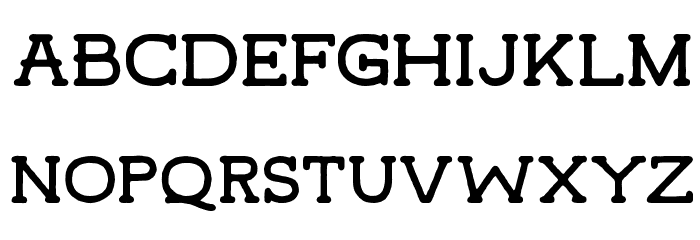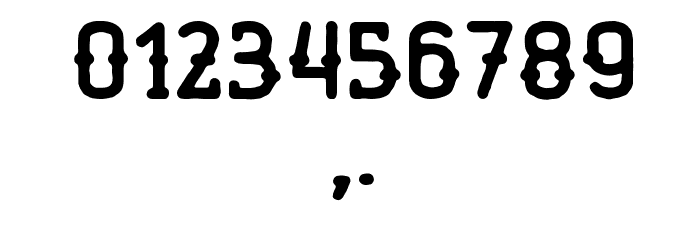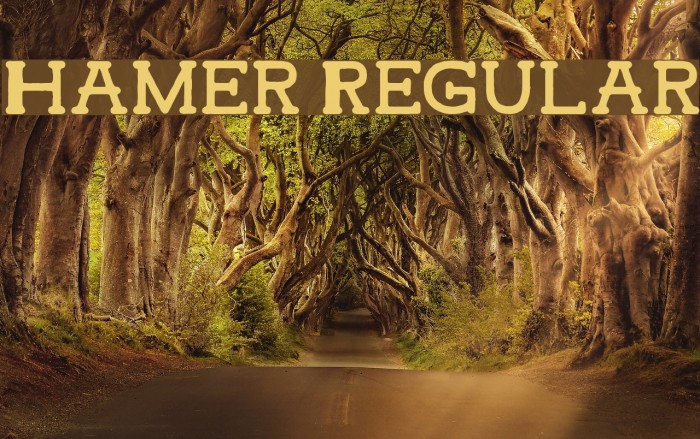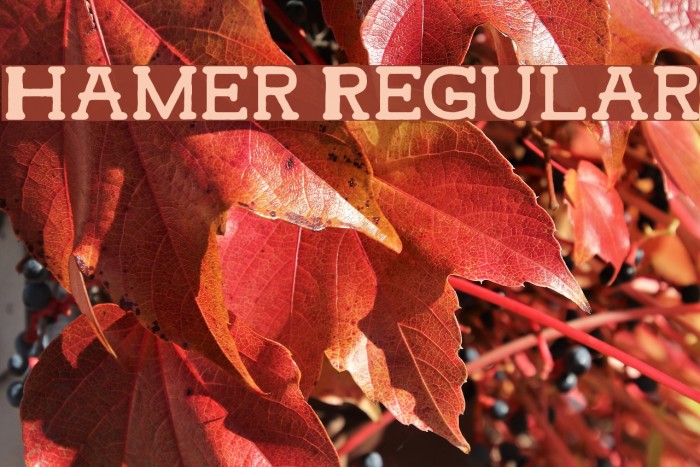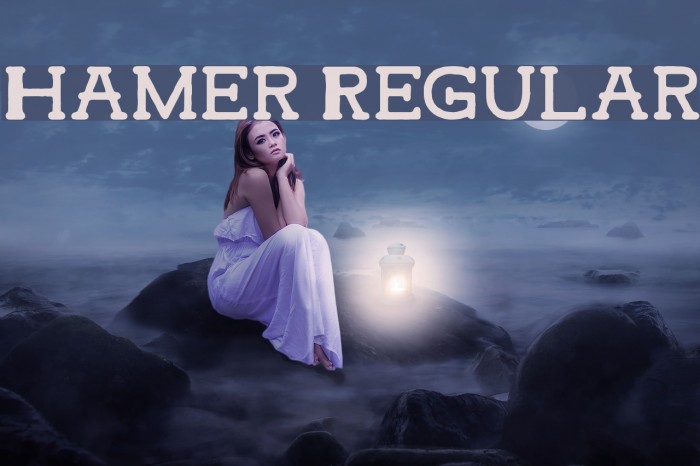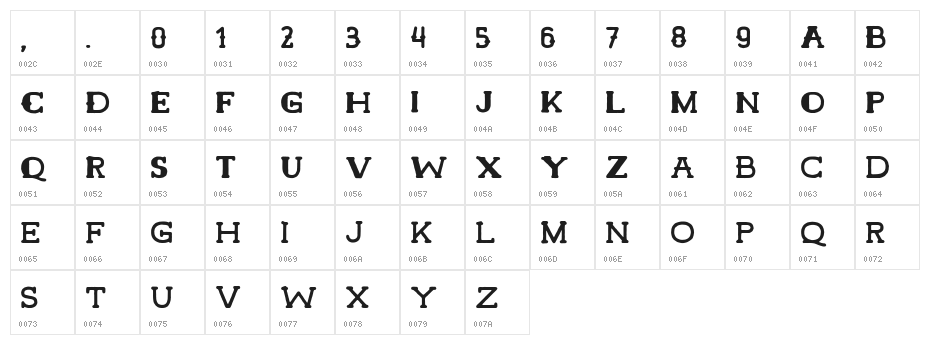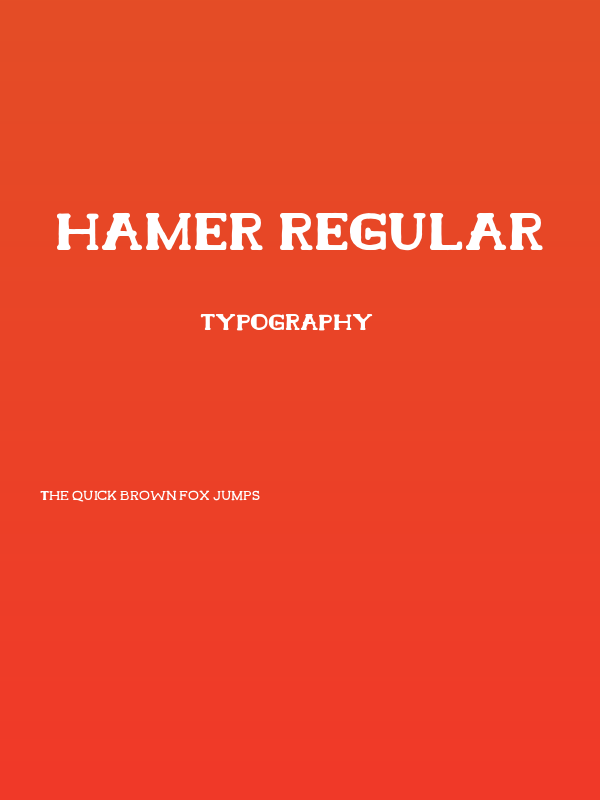
Hamer Regular Font
This font features a bold and rugged design with a strong presence. The characters have a distinct, slightly distressed appearance, giving them a vintage and industrial feel. The uppercase letters are robust and commanding, while the numbers maintain a consistent style that complements the overall aesthetic. The font's unique character shapes and bold strokes make it ideal for projects that require a touch of nostalgia or a handcrafted look. Its versatility allows it to be used in various design contexts, from posters to branding.
A bold, vintage-style font with a rugged, industrial feel.
- Proposed Projects: Ideal for vintage-themed posters, branding, packaging, and signage.
- Overall Style: Vintage